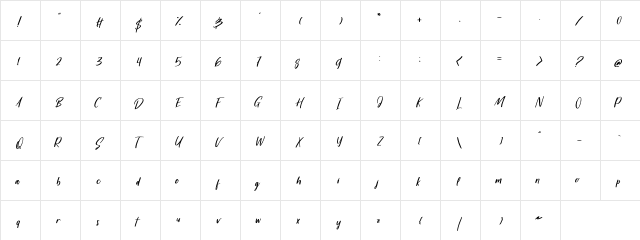
Harvest Barn DEMO Regular
| Foundry | Konstantine Studio |
| Designer | Konstantine Studio |
Design Context for Harvest Barn DEMO Typeface
Harvest Barn DEMO is a composed and adaptable typeface that performs quietly and consistently across a wide range of design contexts.